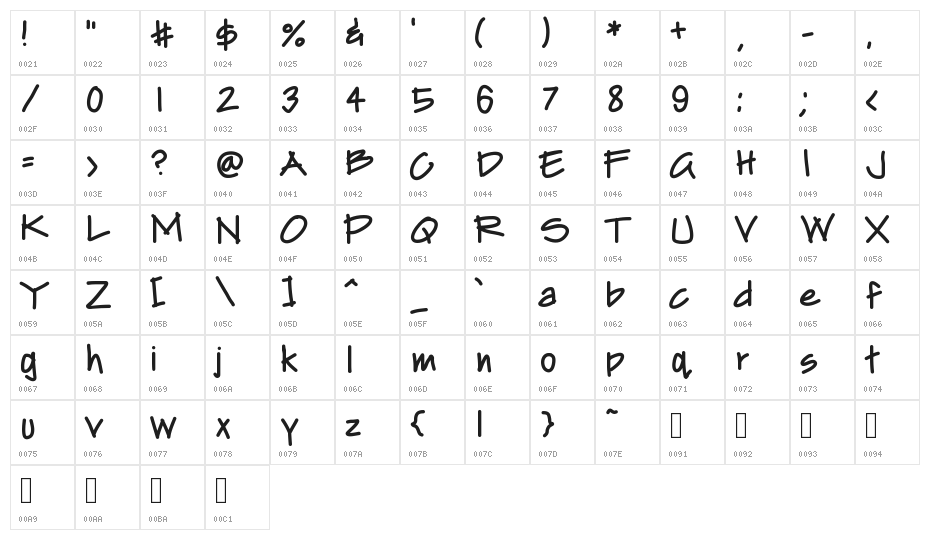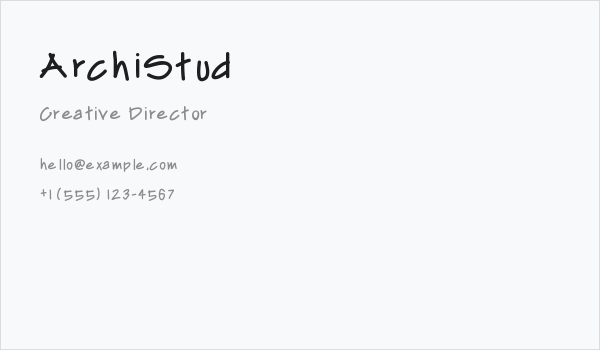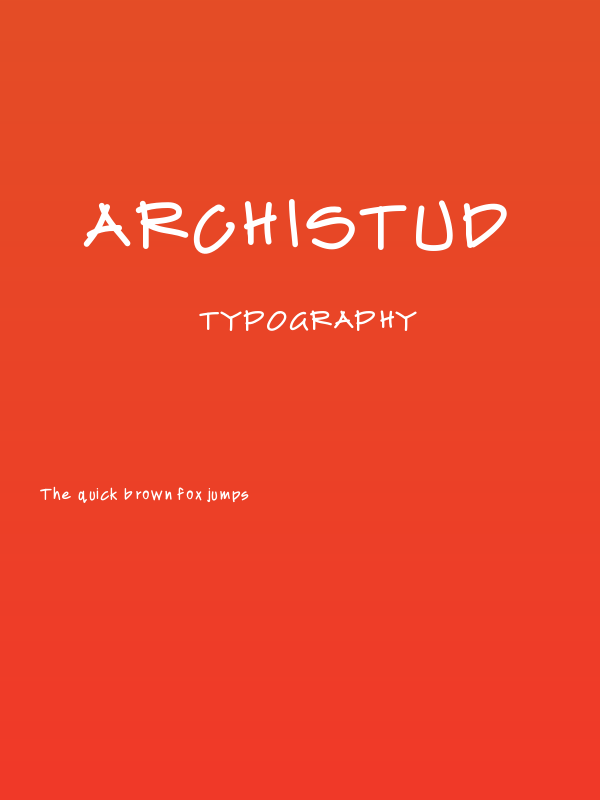
ArchiStud Font
ArchiStud Description
This font features a playful, handwritten style with a casual and informal appearance. The letters are slightly slanted, giving it a dynamic and lively feel. Each character is distinct, with rounded edges and a consistent stroke width that maintains readability. The uppercase and lowercase letters complement each other well, and the numerals are clear and easy to distinguish. Special characters are included, adding versatility for various uses. This font is ideal for projects that require a personal touch or a friendly, approachable aesthetic.
| Proposed Projects | Ideal for greeting cards, invitations, children's books, and casual branding. |